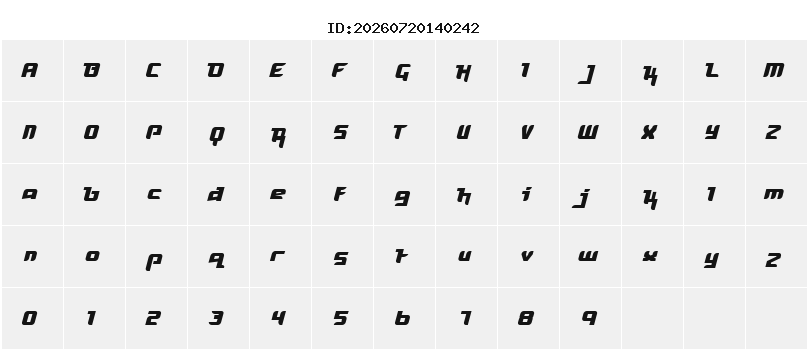
Freya Preview
• Font Name: Freya
• Full Font Name: Freya
• PostScript Name: Freya
About Freya.ttf
Freya.ttf is a modern, elegant sans-serif font designed for ultimate readability and visual harmony. Perfect for branding, headlines, web design, and print materials.